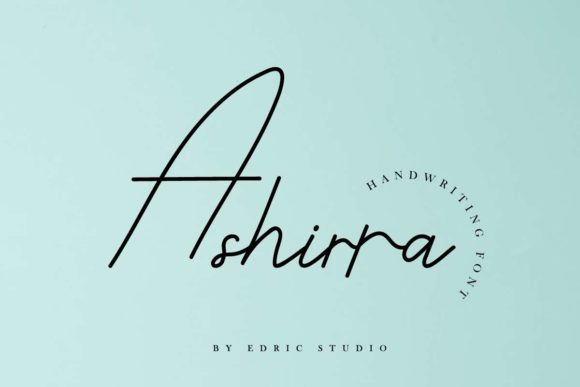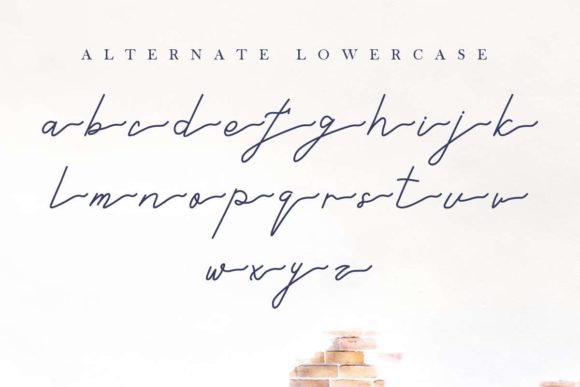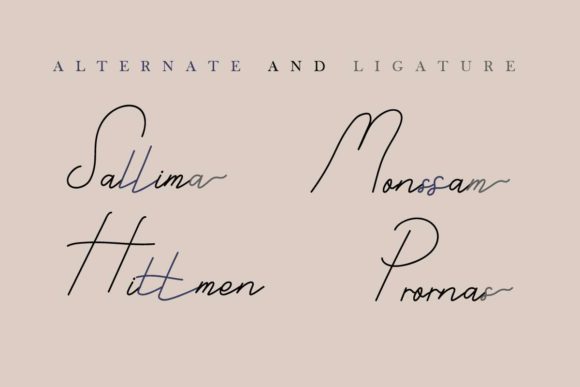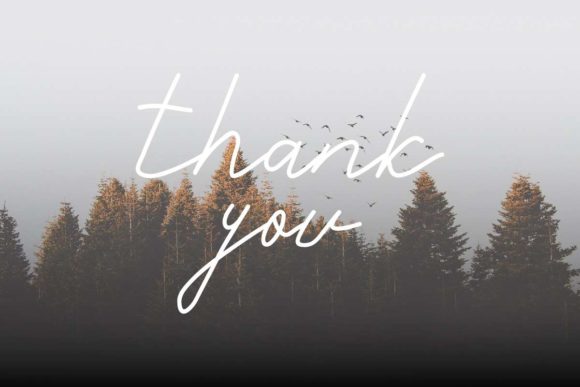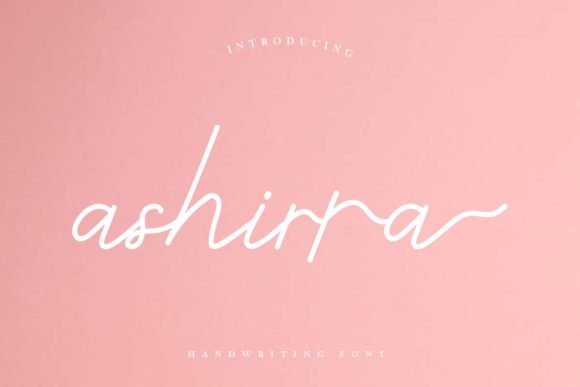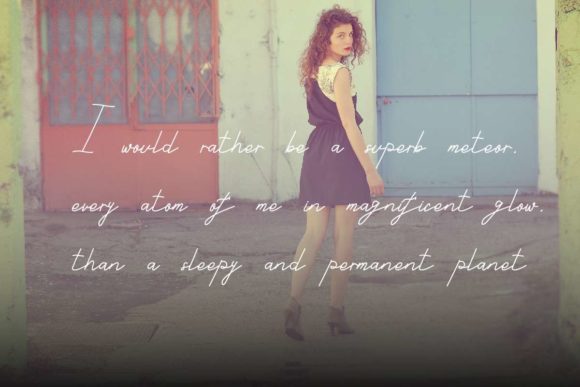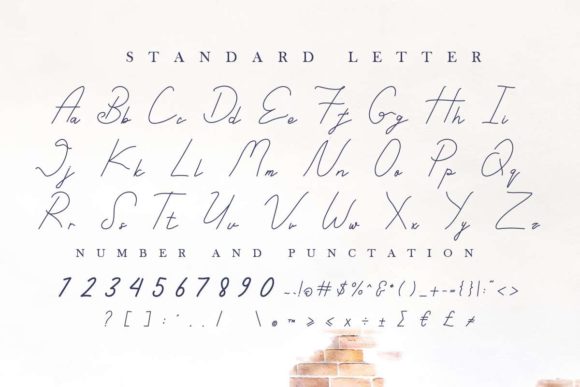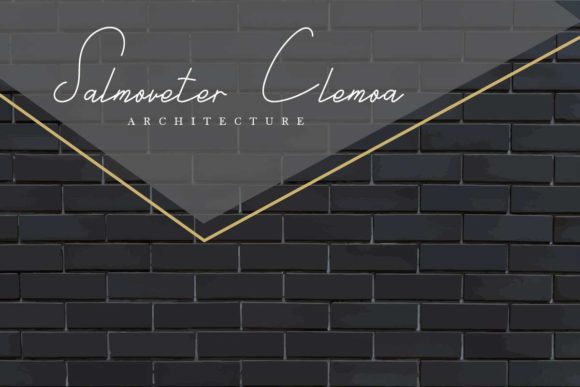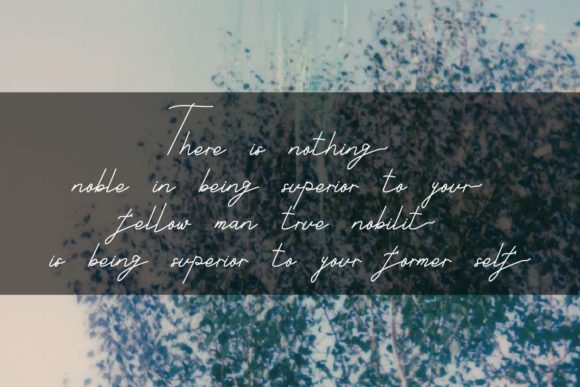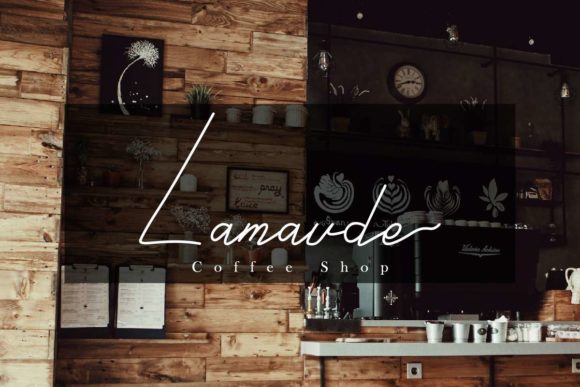
Ashirra Font
About Ashirra Font
Ashirra is an incredibly authentic script with sophisticated lettering. Get inspired by its unique approach to handwriting.